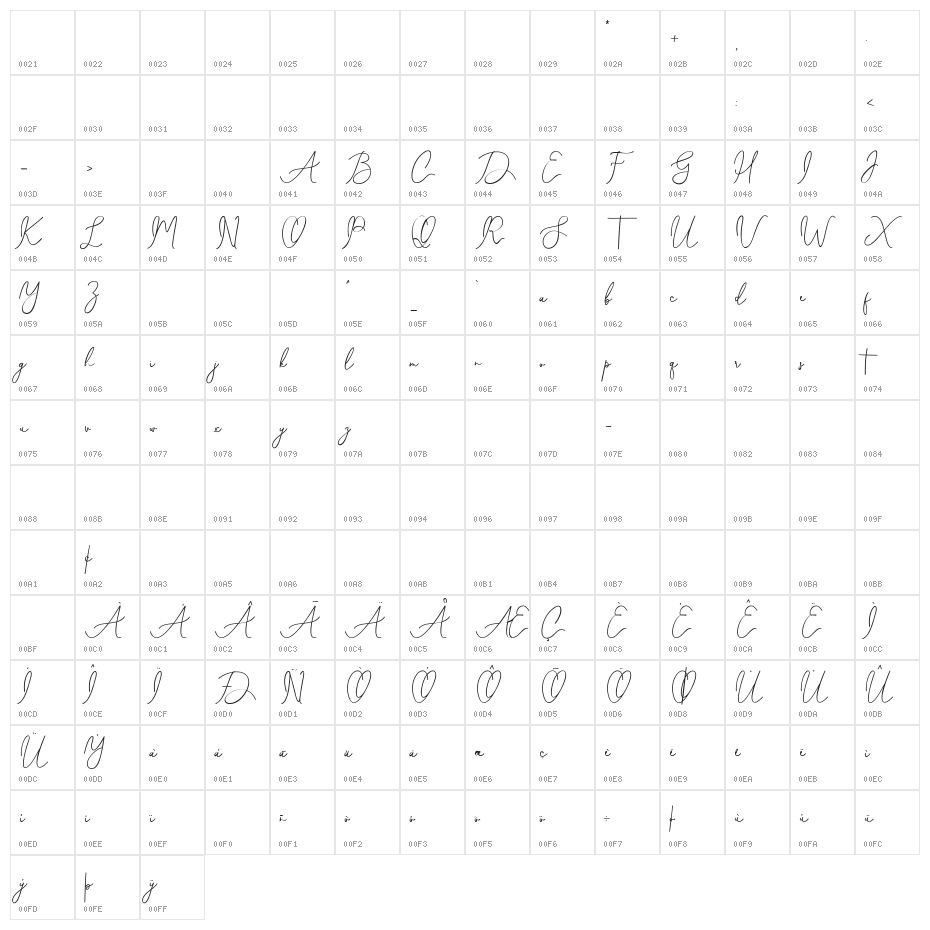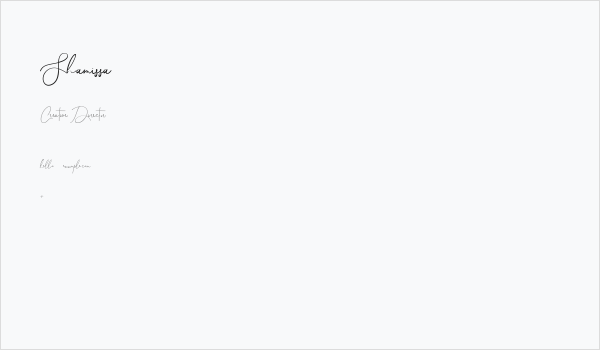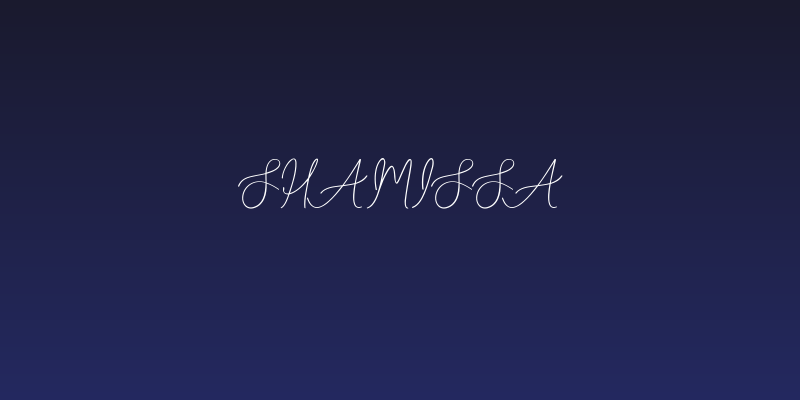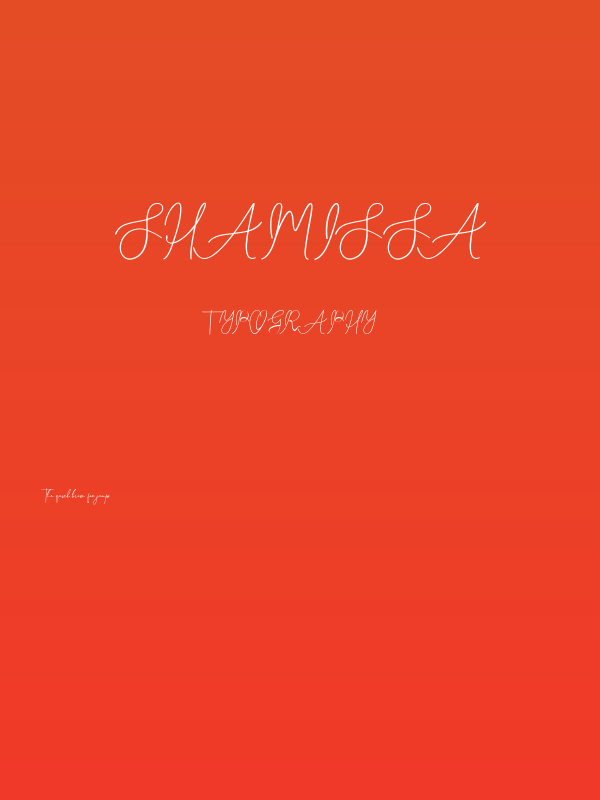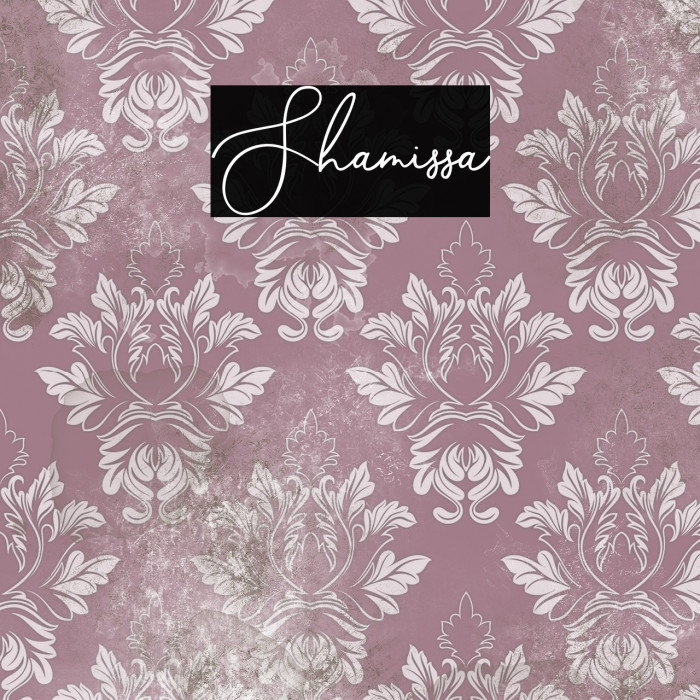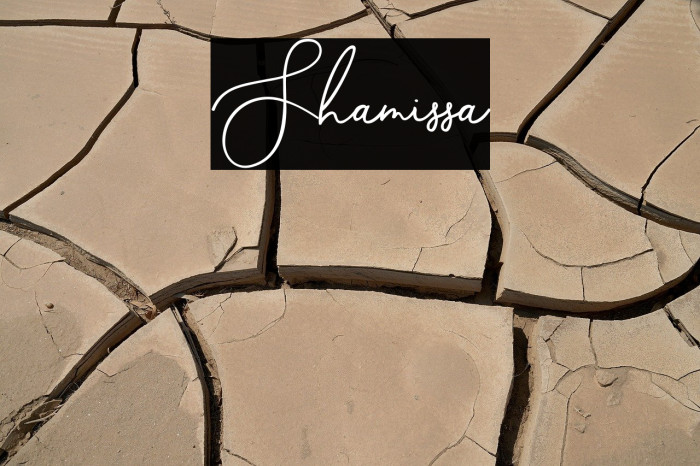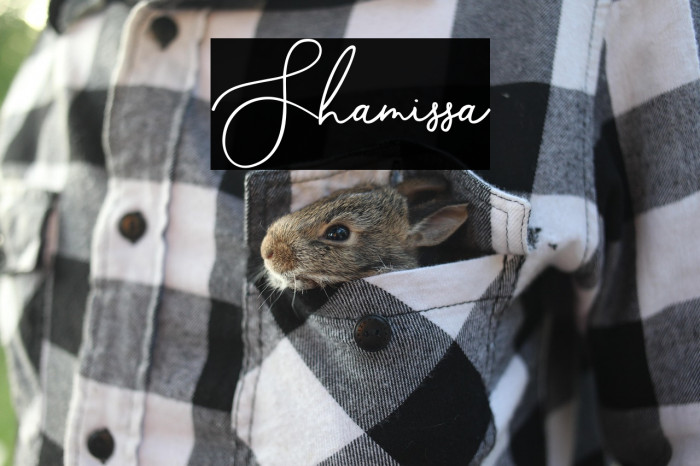
Shamissa Font
Shamissa Description
This elegant script font features a flowing, cursive style with a modern touch. The uppercase letters are tall and slender, with graceful loops and curves that give a sense of fluidity and motion. The lowercase letters maintain a consistent style, with slightly exaggerated ascenders and descenders that add to the font's overall charm. The characters are connected, creating a seamless and harmonious appearance. The font's delicate strokes and intricate details make it suitable for projects that require a touch of sophistication and elegance. The special characters, including punctuation marks, are designed to complement the overall aesthetic, maintaining the same level of intricacy and style.
| Proposed Projects | Ideal for wedding invitations, elegant branding, personal signatures, and decorative quotes. |